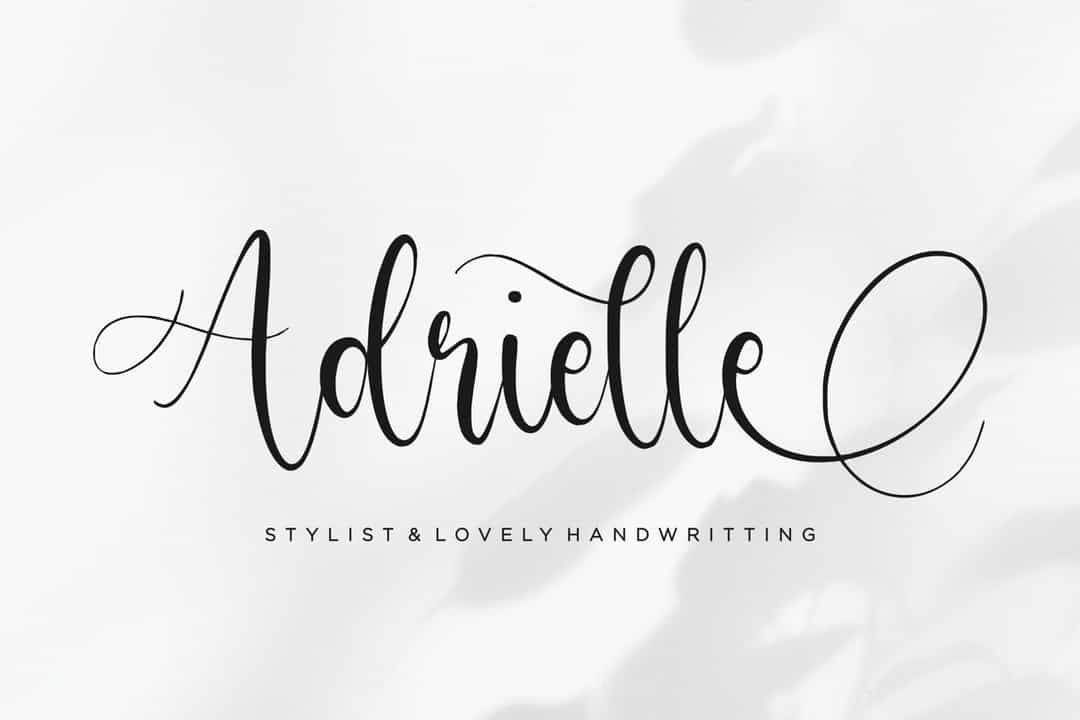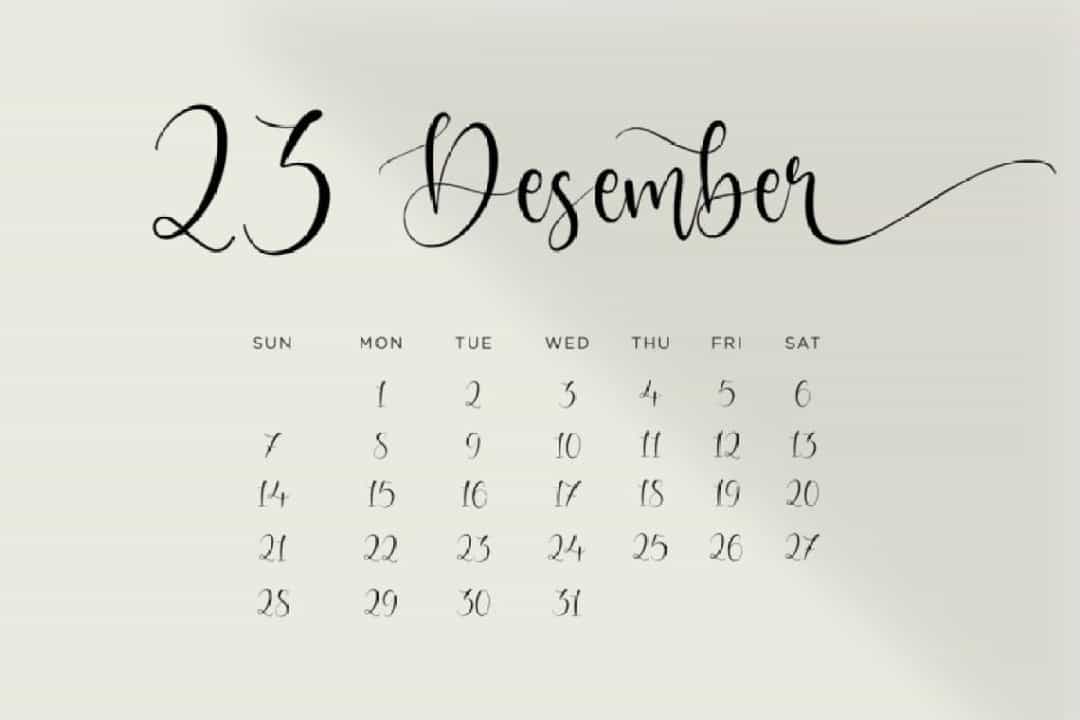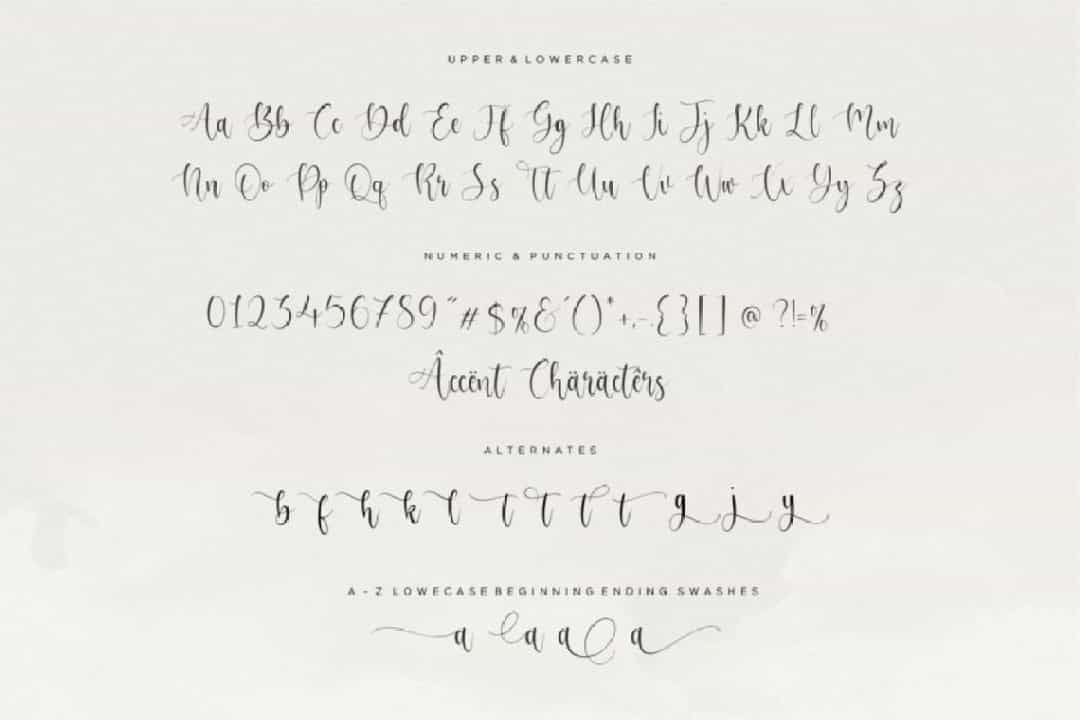
Discover Adrielle Font, part of the Calligraphy Handwritten collection—a versatile and unique font perfect for adding a personal touch to your projects. Download it for free and enjoy crafting designs with style, from invitations to social media posts. This font is available exclusively for personal use, giving you the freedom to create without limits. Unlock your creativity with Adrielle Font today!
It is possible to describe Adrielle as an elegant and rather unique handwritten font that has a well-defined style. Ideal for wedding invitations, thank you cards, birthday cards, logos and many other applications where you need unique styling, it is PUA encoded so that all the characters and swashes are easily accessible!